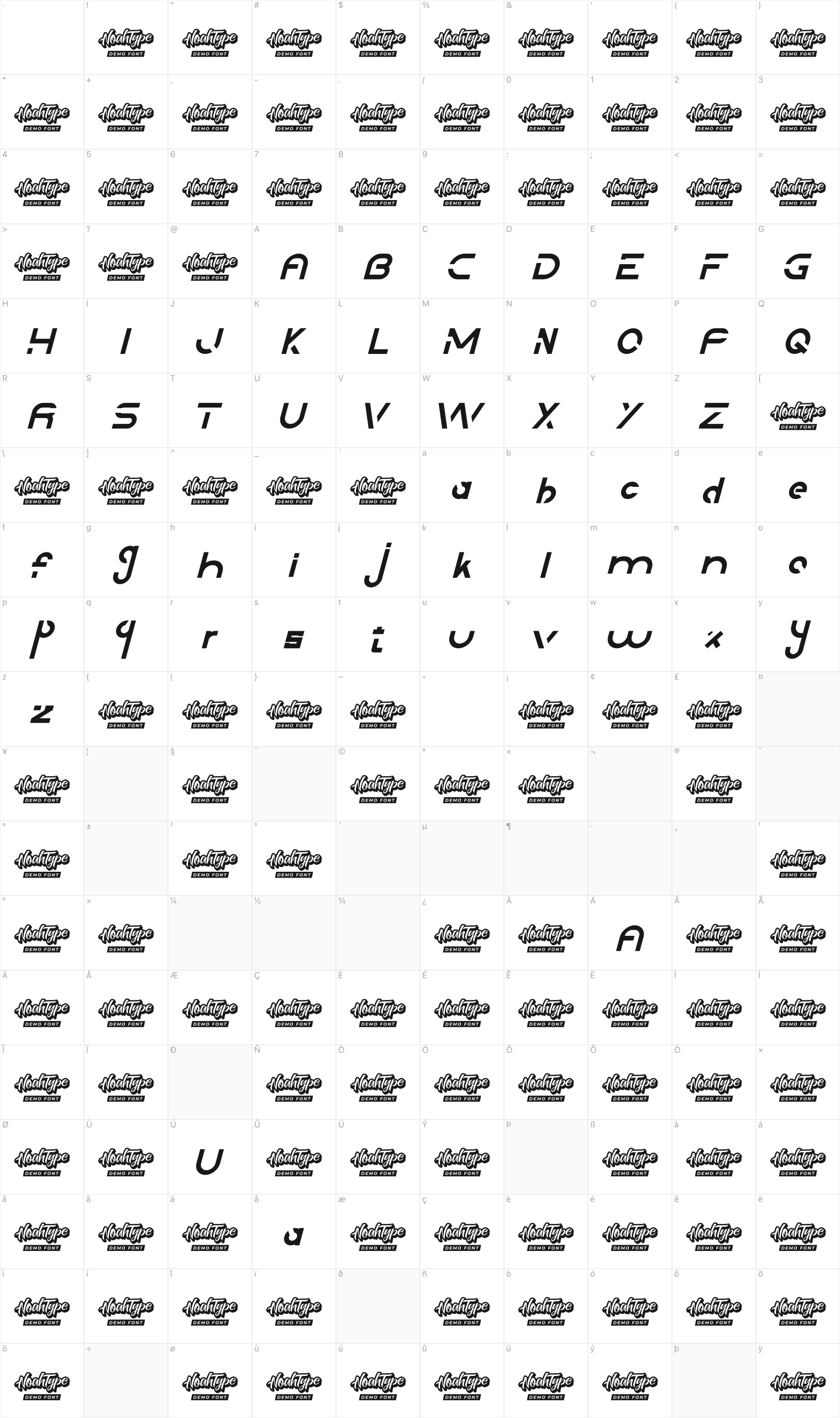
Downstream
Downstream is a bold geometric sans with a futuristic edge, built on rounded forms interrupted by sharp notches and angular cuts. The italic angle pushes it into motion, making it feel fast and forward-looking. It thrives in gaming, tech branding, and anywhere a headline needs kinetic energy.